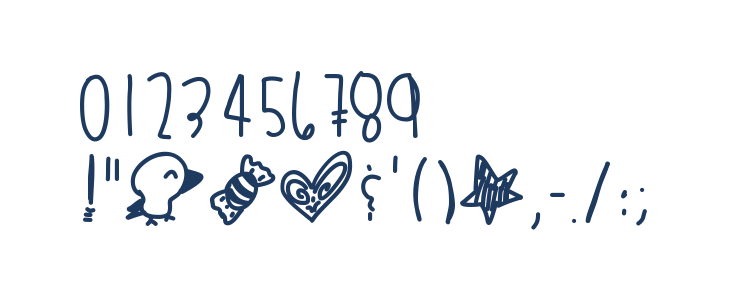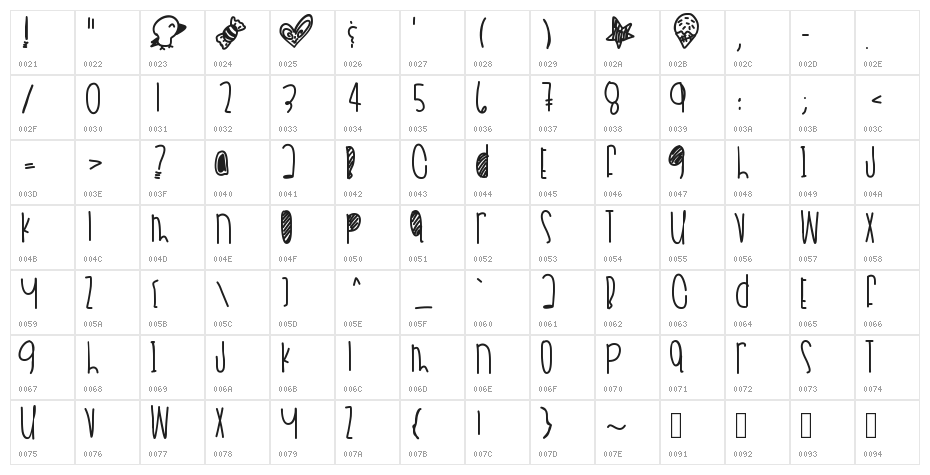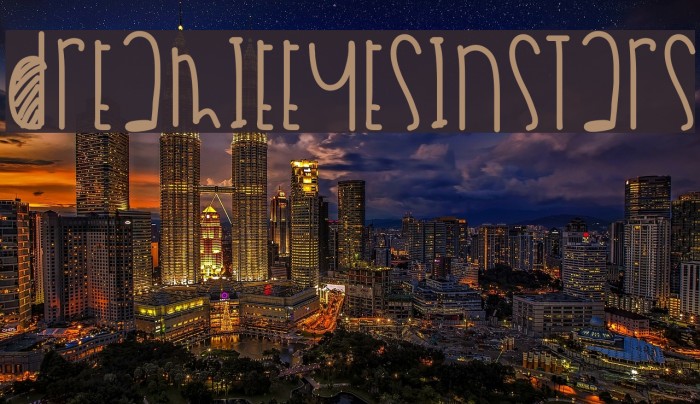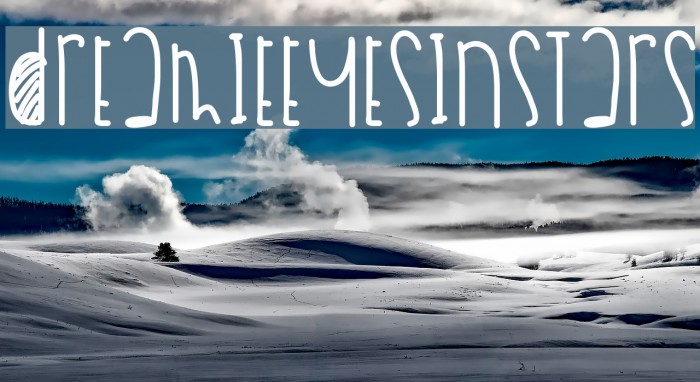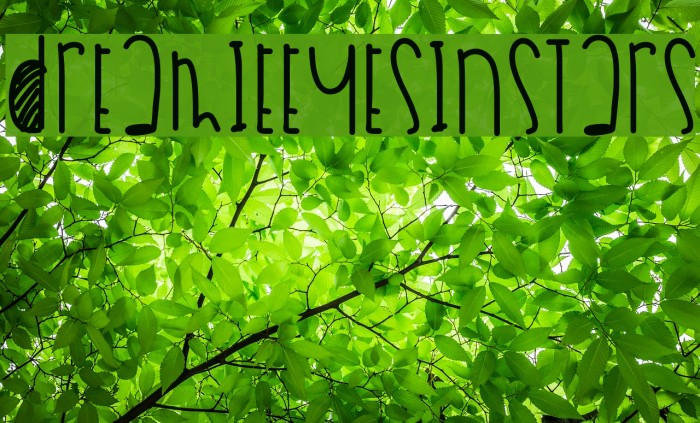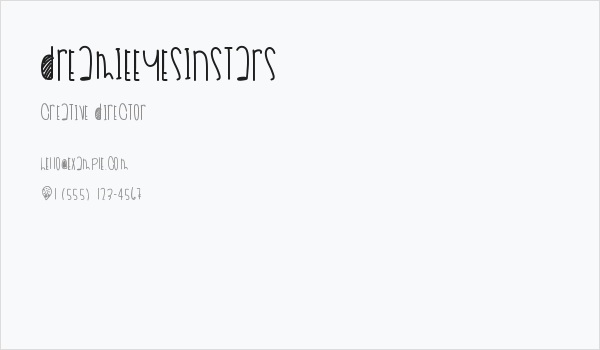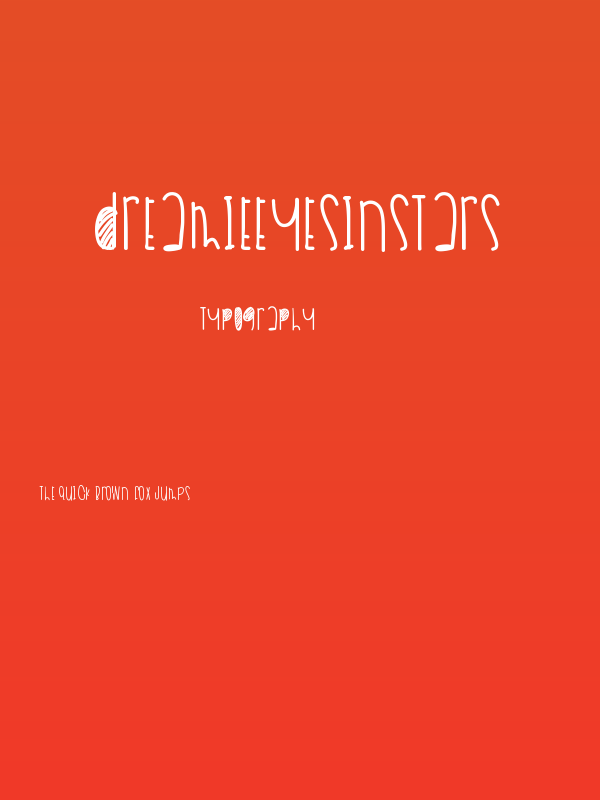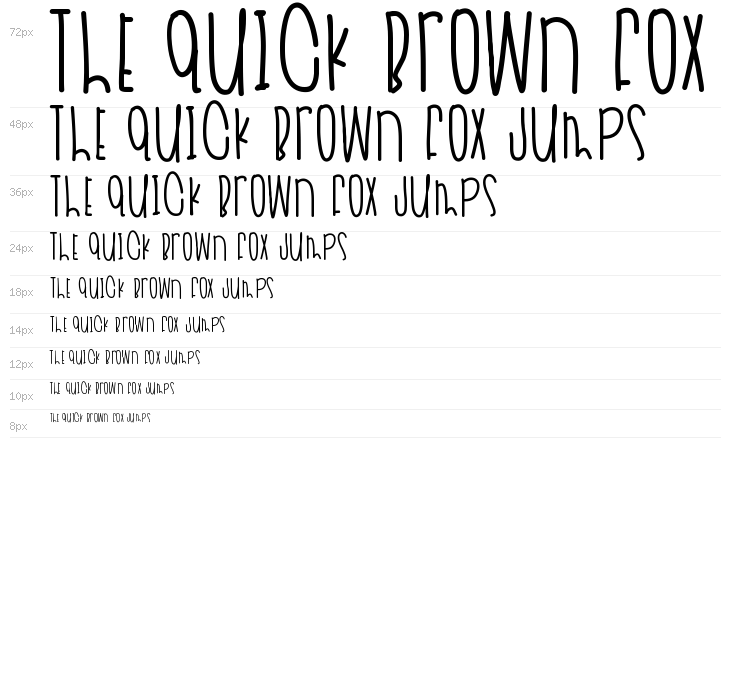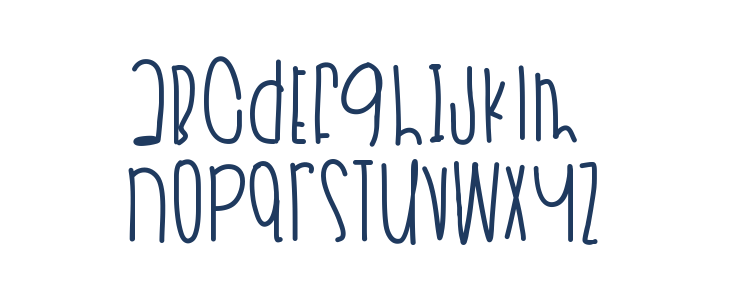
DreamieEyesInStars Font
DreamieEyesInStars Description
This playful and whimsical font features a hand-drawn style with a unique, artistic flair. The characters are tall and narrow, with uneven strokes that give it a charming, informal appearance. The uppercase and lowercase letters maintain a consistent height, adding to its quirky aesthetic. The numbers and special characters are equally creative, with some incorporating playful elements like stars and hearts. This font exudes a sense of fun and creativity, making it ideal for projects that require a personal touch.
| Proposed Projects | Ideal for children's books, greeting cards, playful branding, and creative posters. |